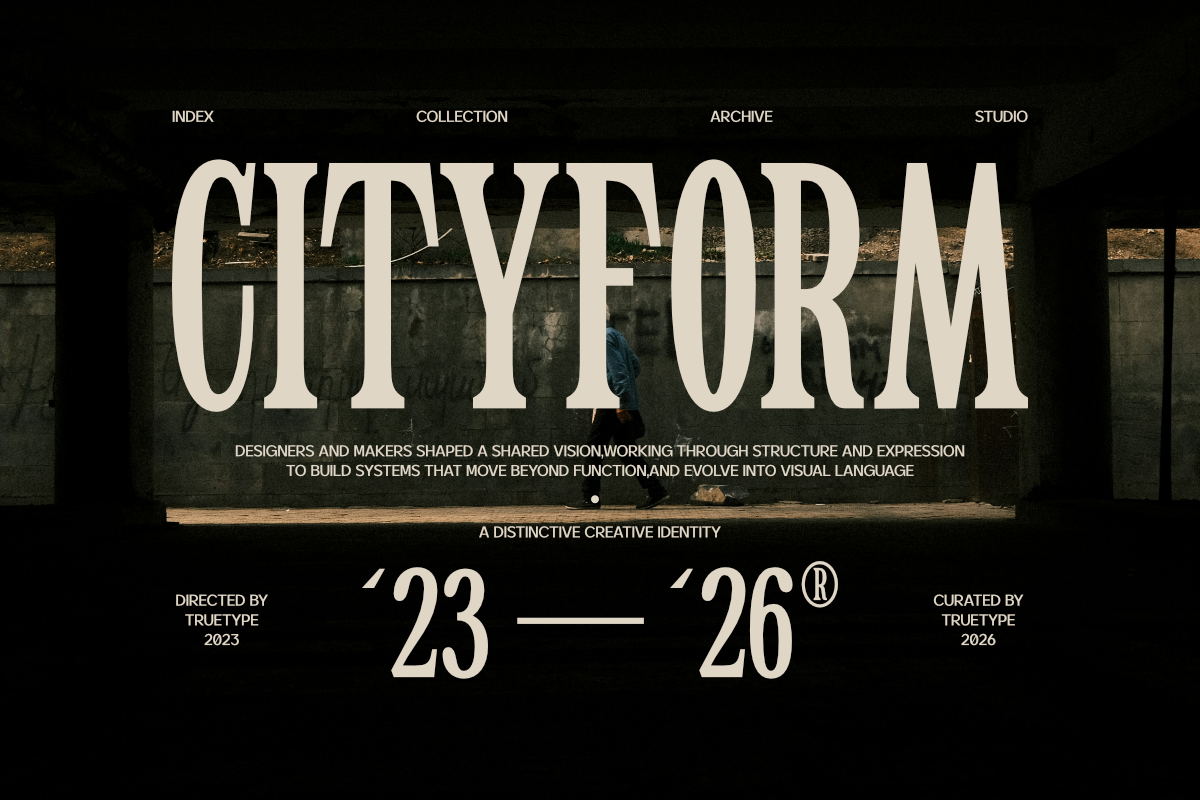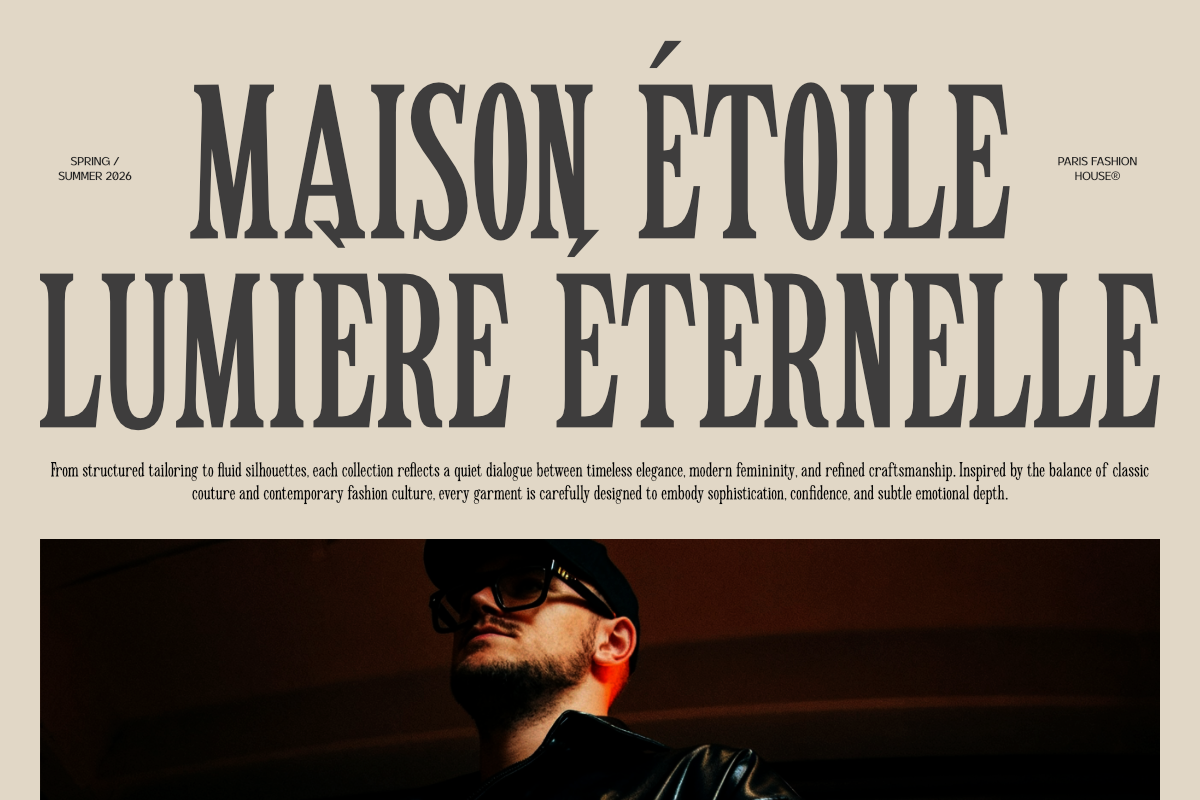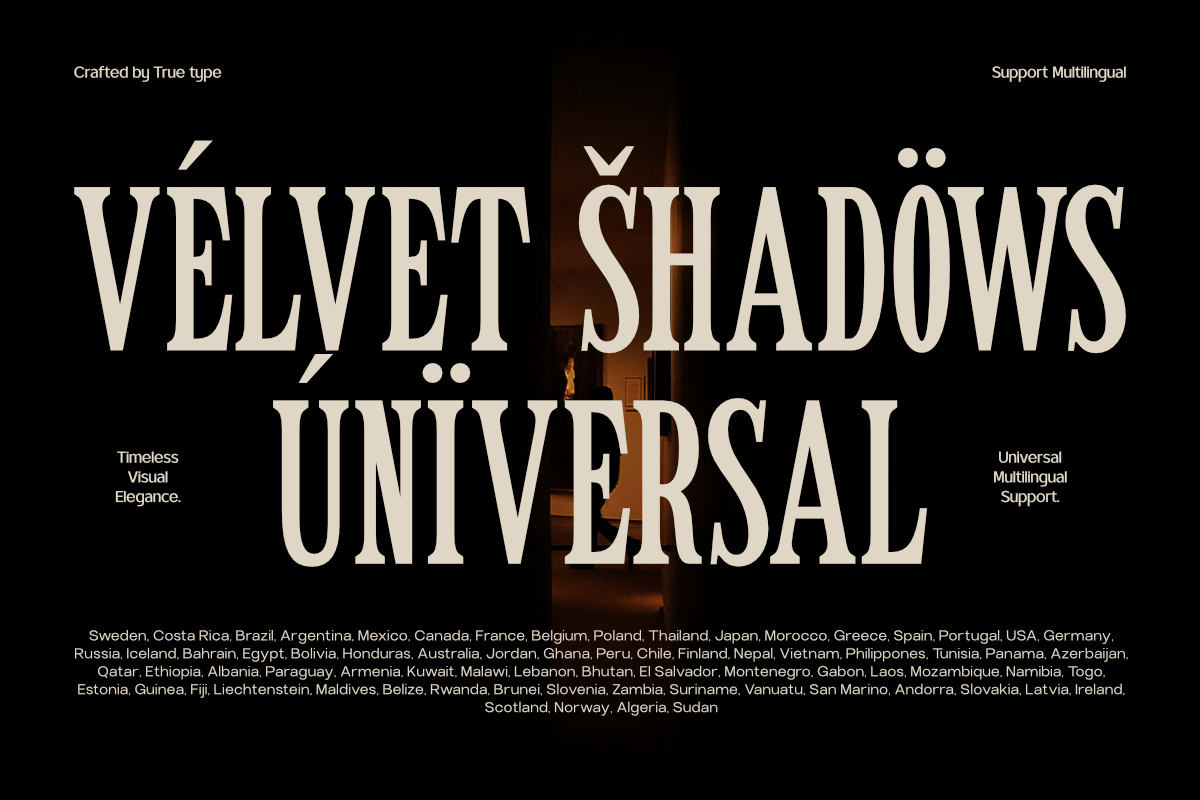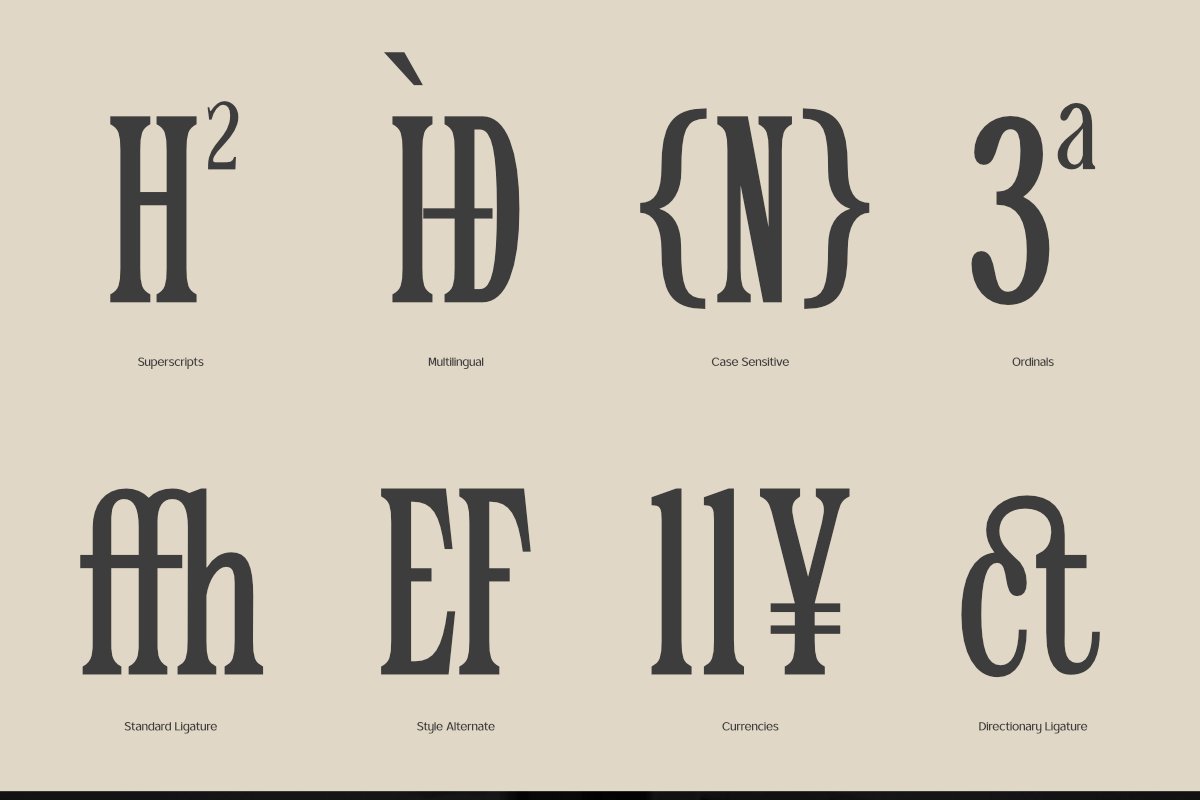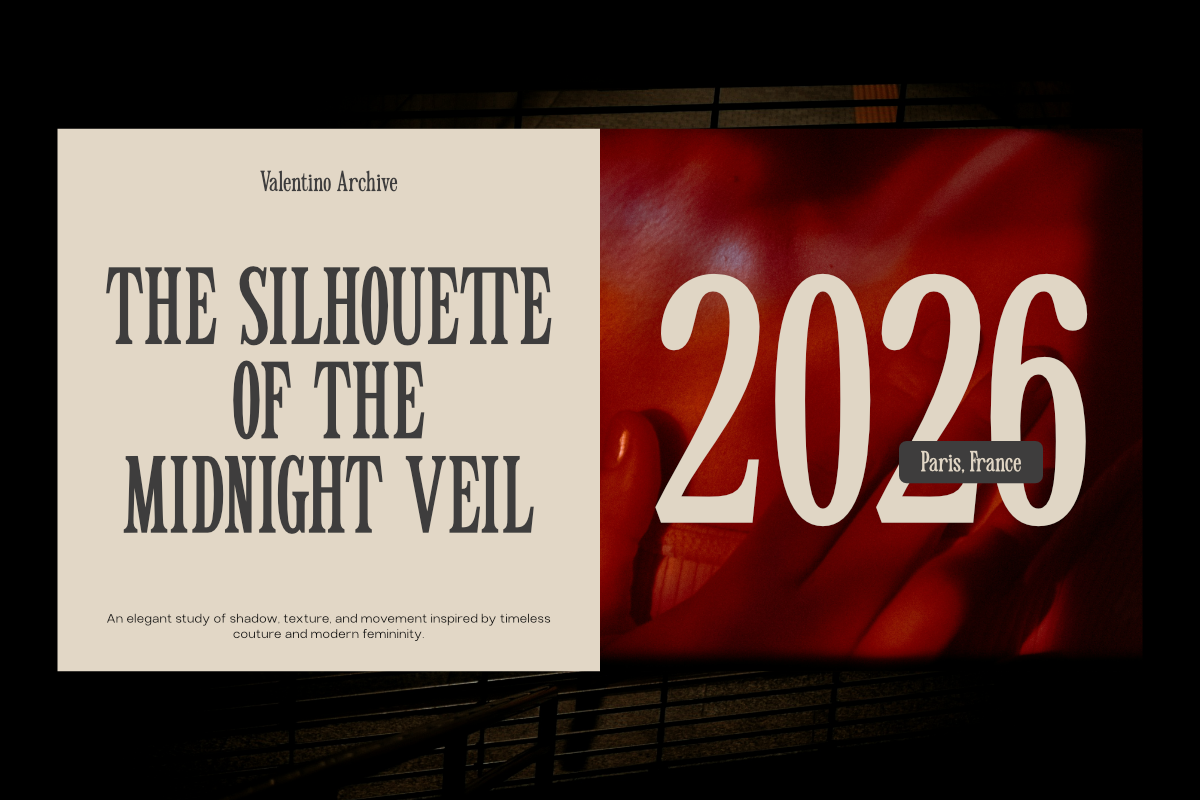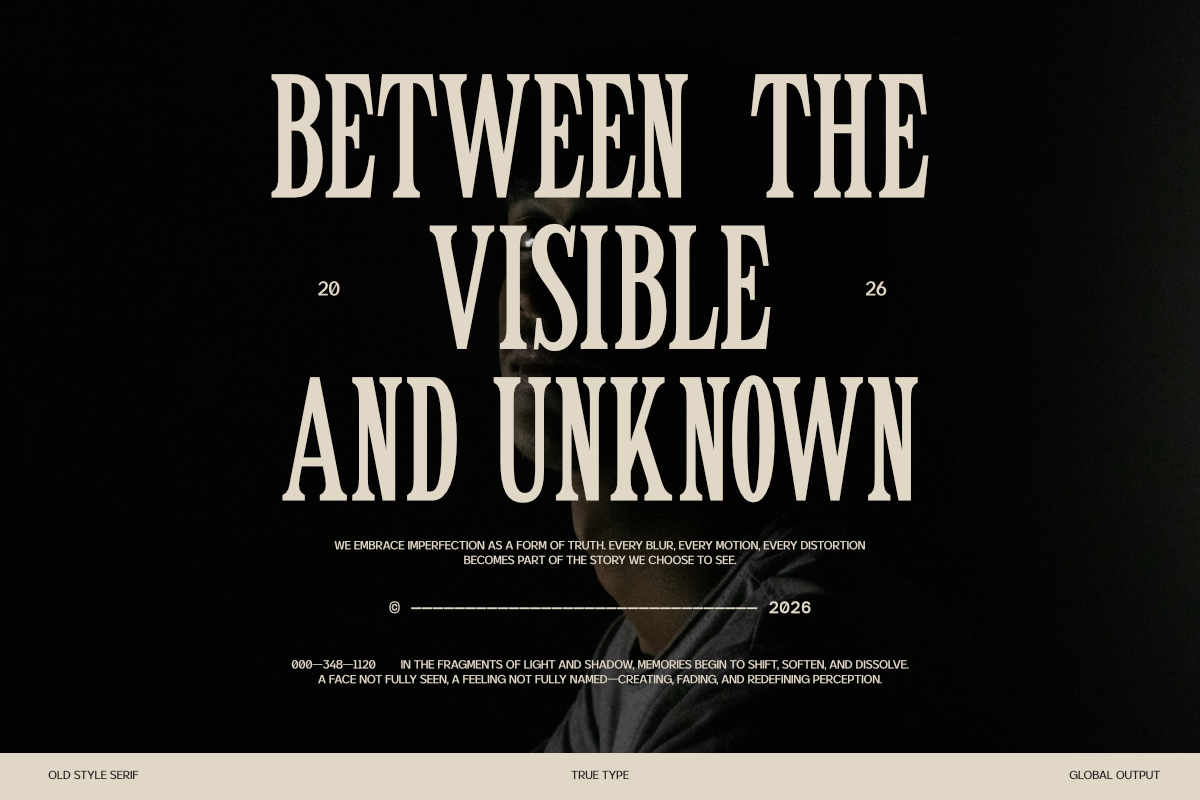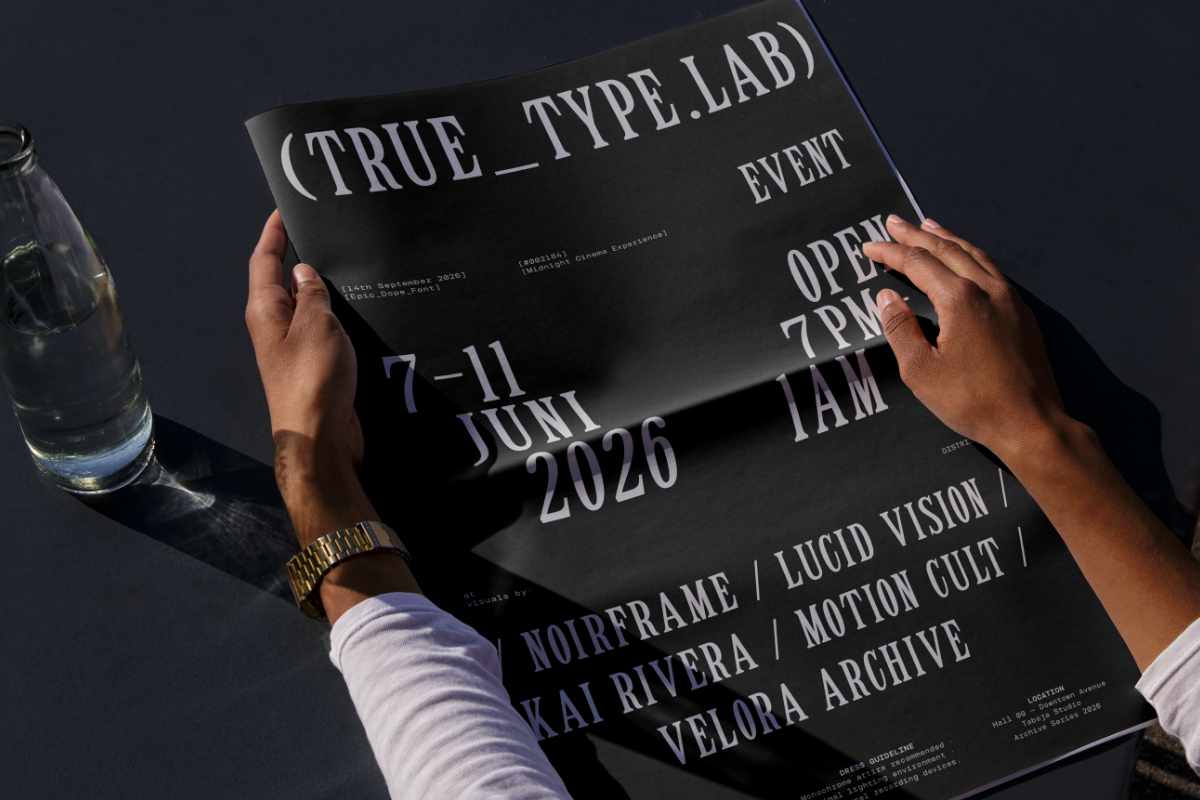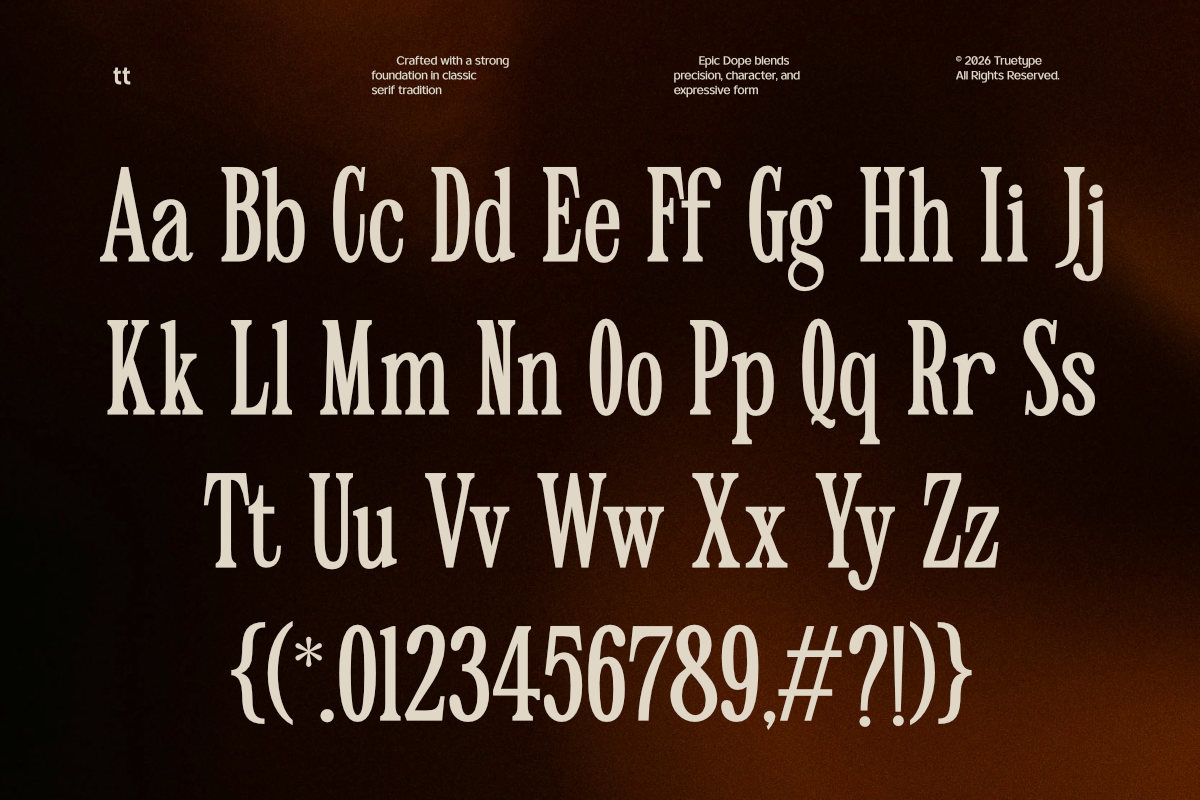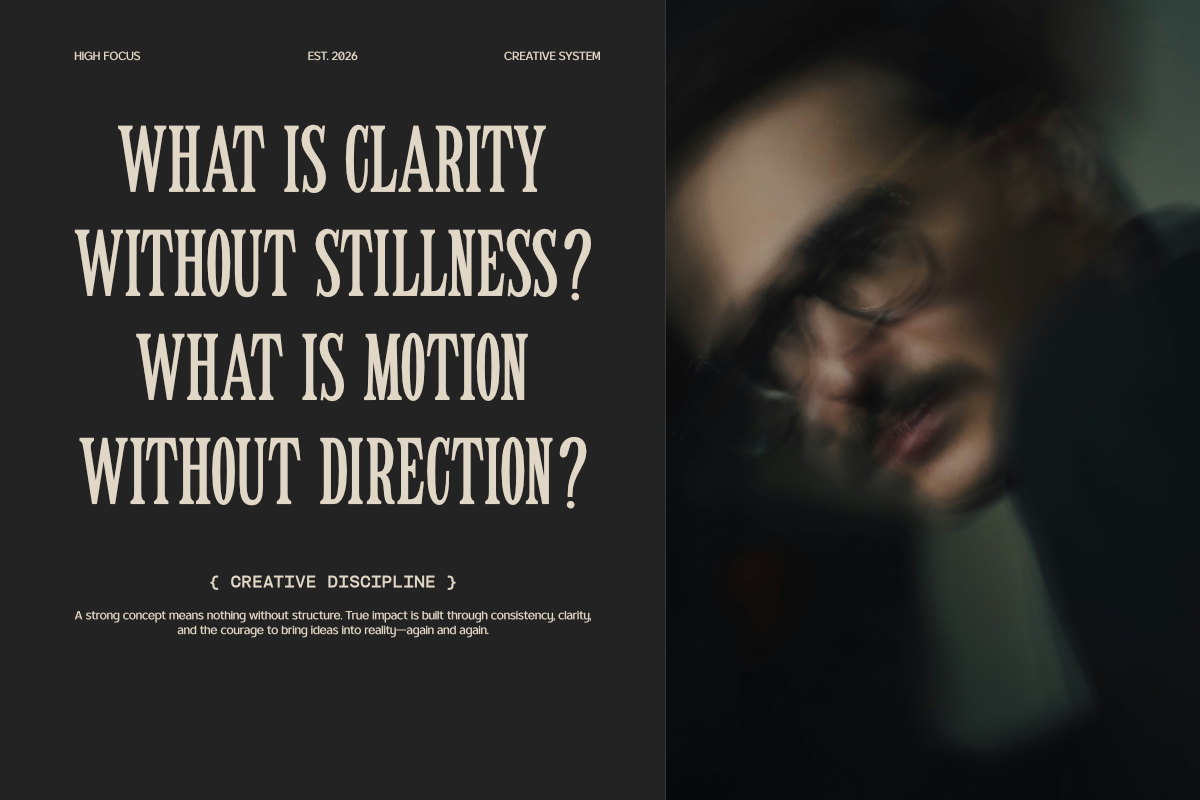
TRT Epic Dope – Condensed Serif
TRT Epic Dope is an elegant condensed serif typeface that blends classic sophistication with modern character. Featuring tall proportions, refined high contrast strokes, and distinctive serif details, it creates a strong visual impact while maintaining excellent readability.
Perfect for luxury branding, logos, editorial headlines, packaging, fashion projects, restaurant identities, and premium marketing materials. Its narrow structure allows for bold, space efficient compositions, making every design feel stylish, confident, and memorable.
Whether you're creating a high end brand identity or eye catching display typography, TRT Epic Dope delivers timeless elegance with a contemporary edge.